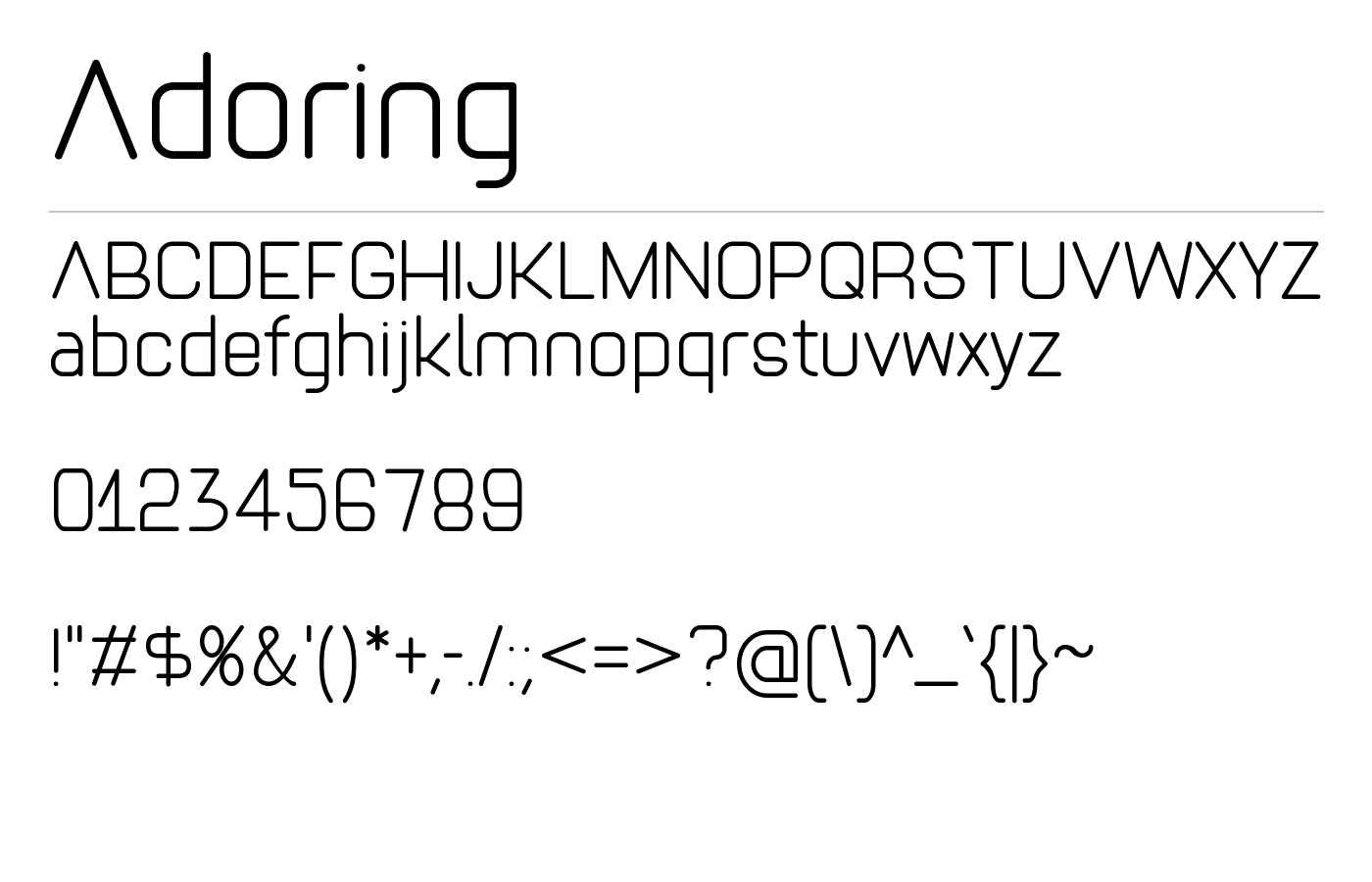
Adoring is a sleek, modern sans serif font characterized by its thin, geometric strokes and a tall x-height that gives it a clean, elegant appearance. Its narrow width and softly rounded corners convey a contemporary yet approachable personality, making it ideal for tech, fashion, and minimalist branding. This font works well for headlines, logos, and digital use where a sophisticated and futuristic look is desired.
Adoring Font
About Adoring Font